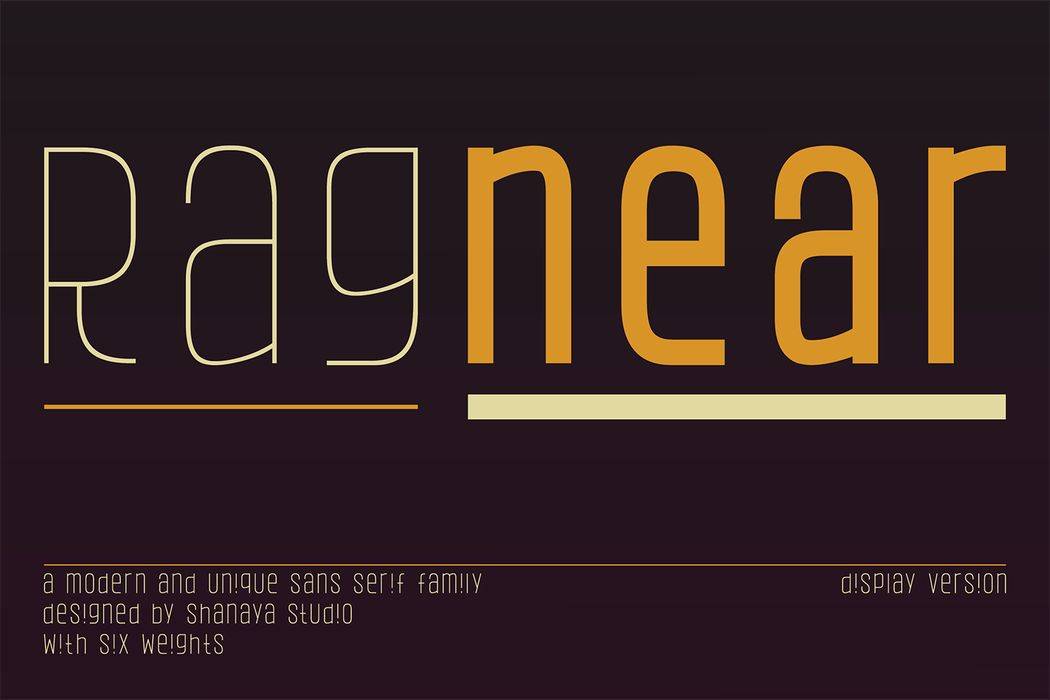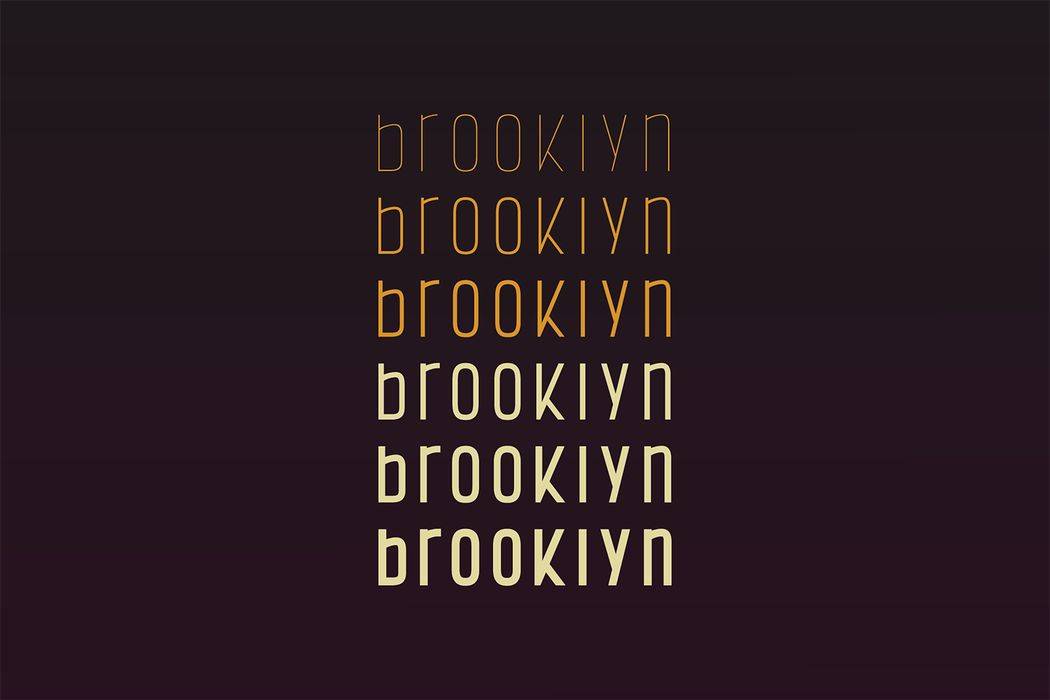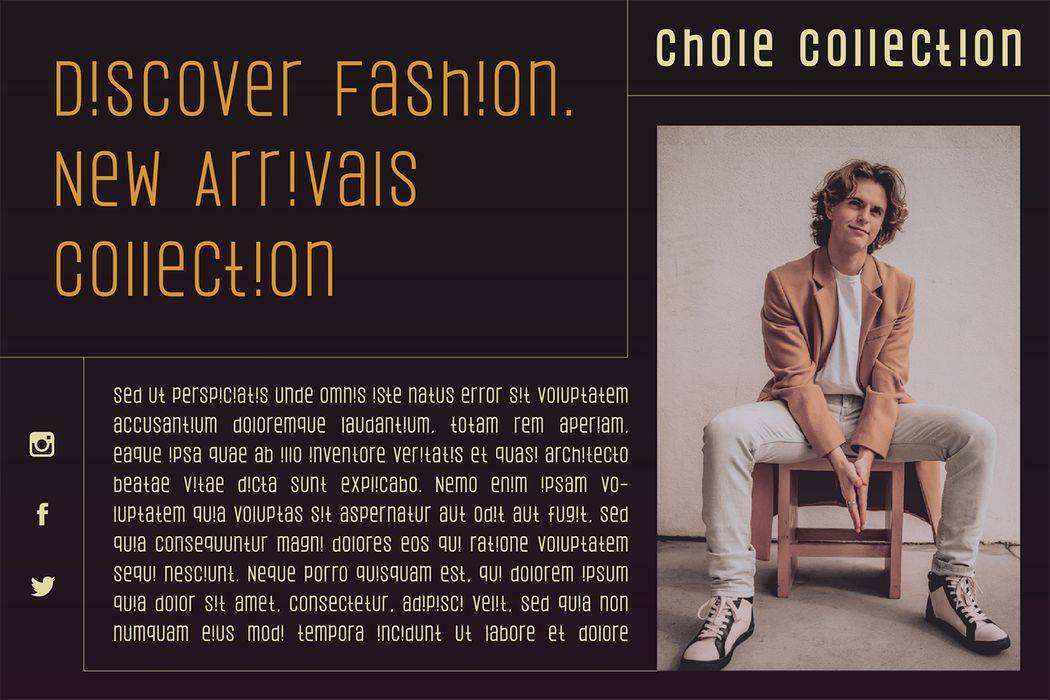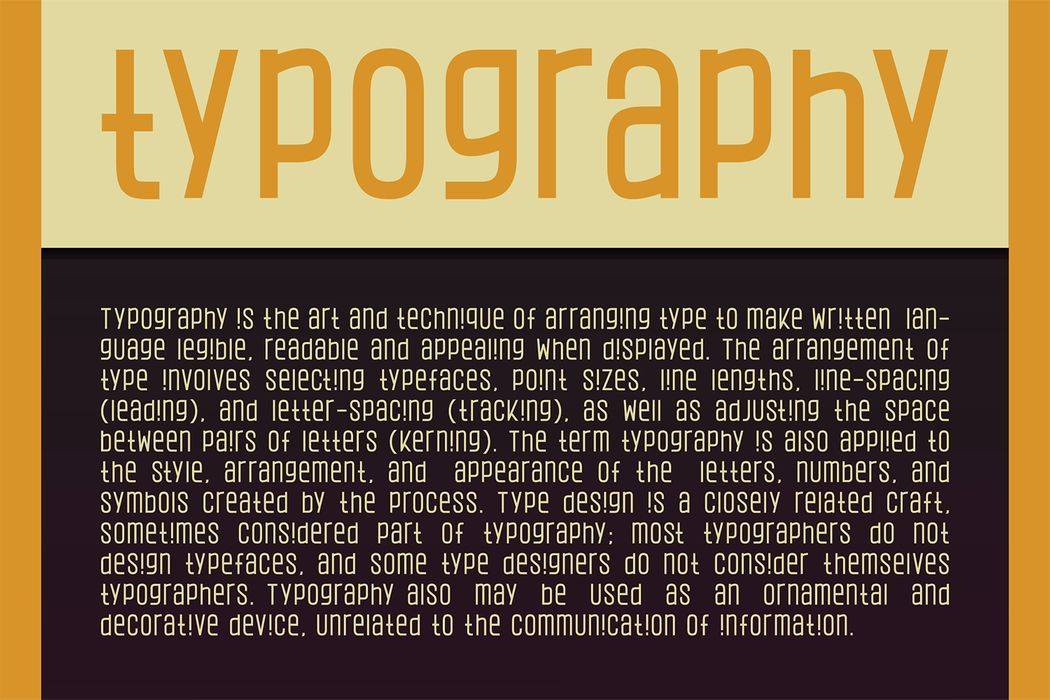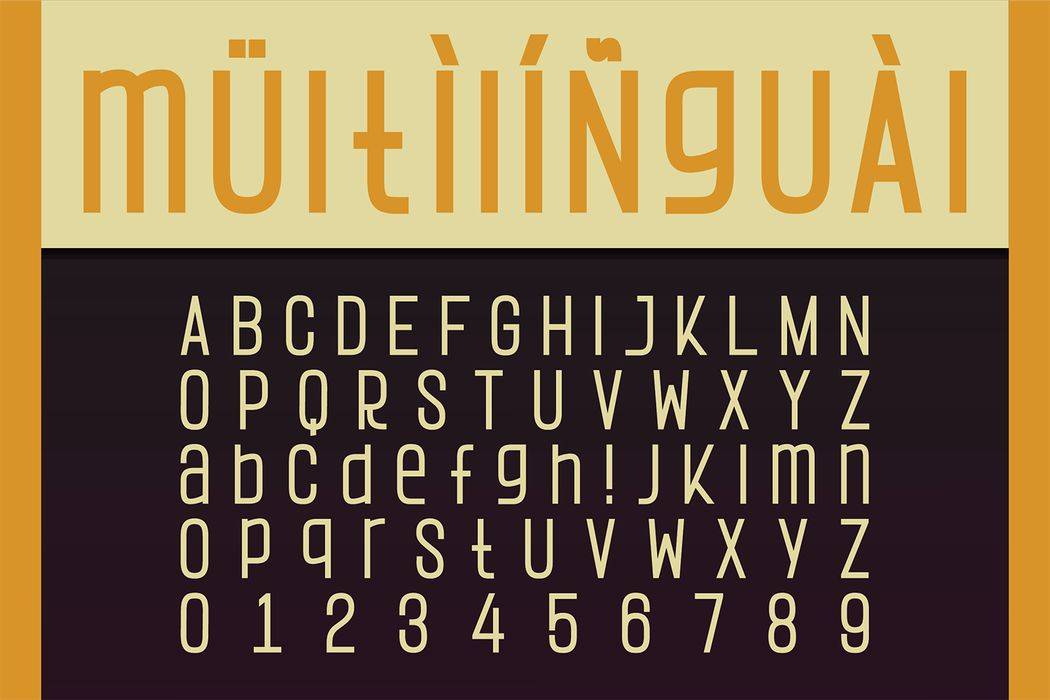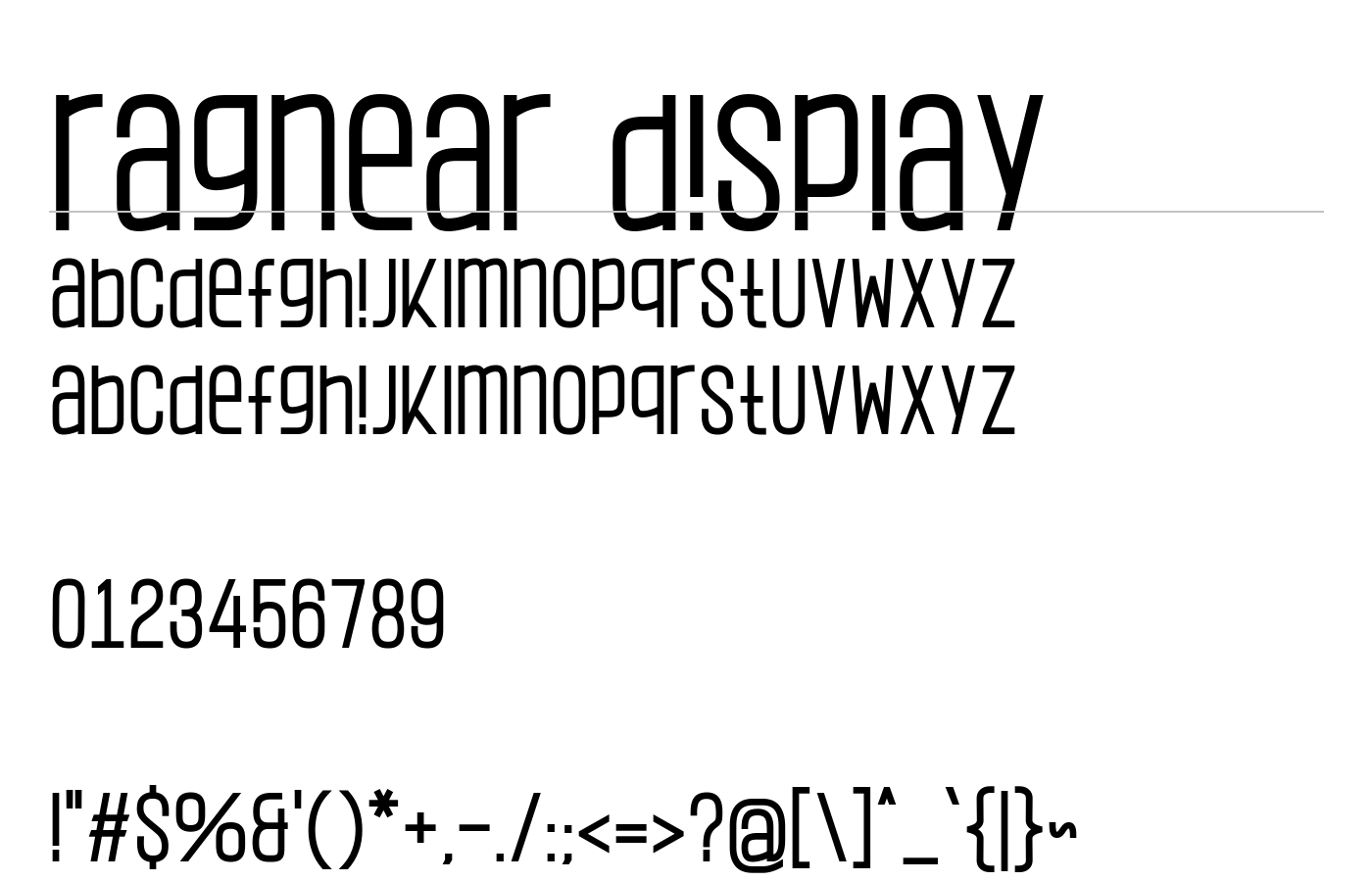
Ragnear Display is a tall, narrow sans serif font with a modern, minimalist style, featuring consistent stroke weight and clean lines that give it a sleek, contemporary look. Its condensed forms and high x-height make it ideal for eye-catching headlines or branding where space is limited but impact is key. This font works well for modern editorial designs, tech brands, and stylish packaging that seek a bold yet refined presence.